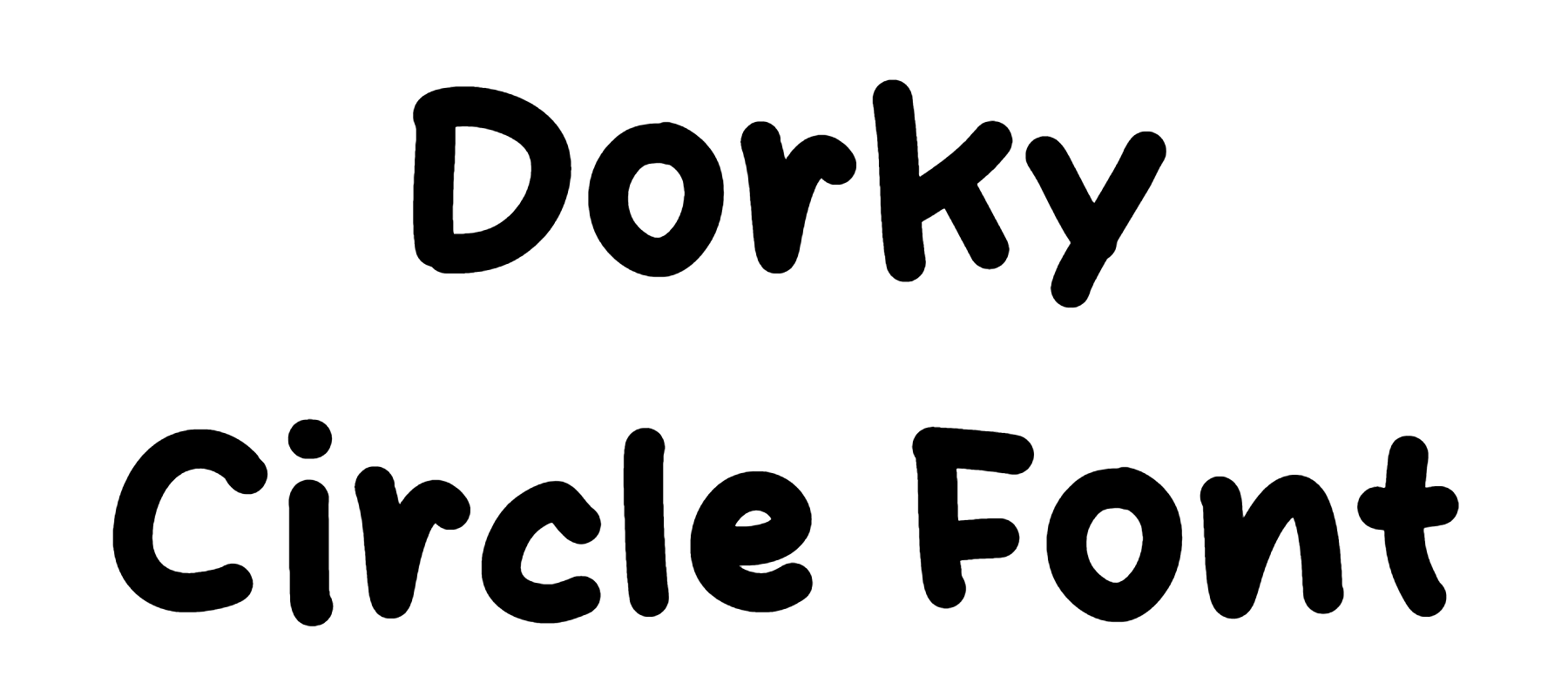
Dorky Circle
Dorky Circle is a cartoon font made by MJType (Muhamad Junaid) (2025). Its bouncy, rounded letters feel playful, like lettering from a cartoon or a comic book. It's a free download, and you can try it with your own text in the preview above first.
What You Can Type With Dorky Circle
With complete upper and lowercase letters and all ten digits, Dorky Circle is ready for real wording, not just a single headline. Common punctuation such as &, !, ? and @ is included as well. It also has the accented letters you need for Spanish, French, German, Portuguese and Italian.
Where Dorky Circle Works Best
Think of Dorky Circle for kids' books, birthday invites and fun YouTube thumbnails. Its lowercase letters are tall compared to the capitals, which keeps it readable at smaller sizes. Cartoon fonts are great for short, fun lines. If you place it over a busy photo, add a thick outline or a drop shadow so it stays readable.
Who designed Dorky Circle font?
Does Dorky Circle support accented letters?
Yes. Dorky Circle includes the accented letters needed for Spanish, French, German, Portuguese and Italian, so it works for more than just English.